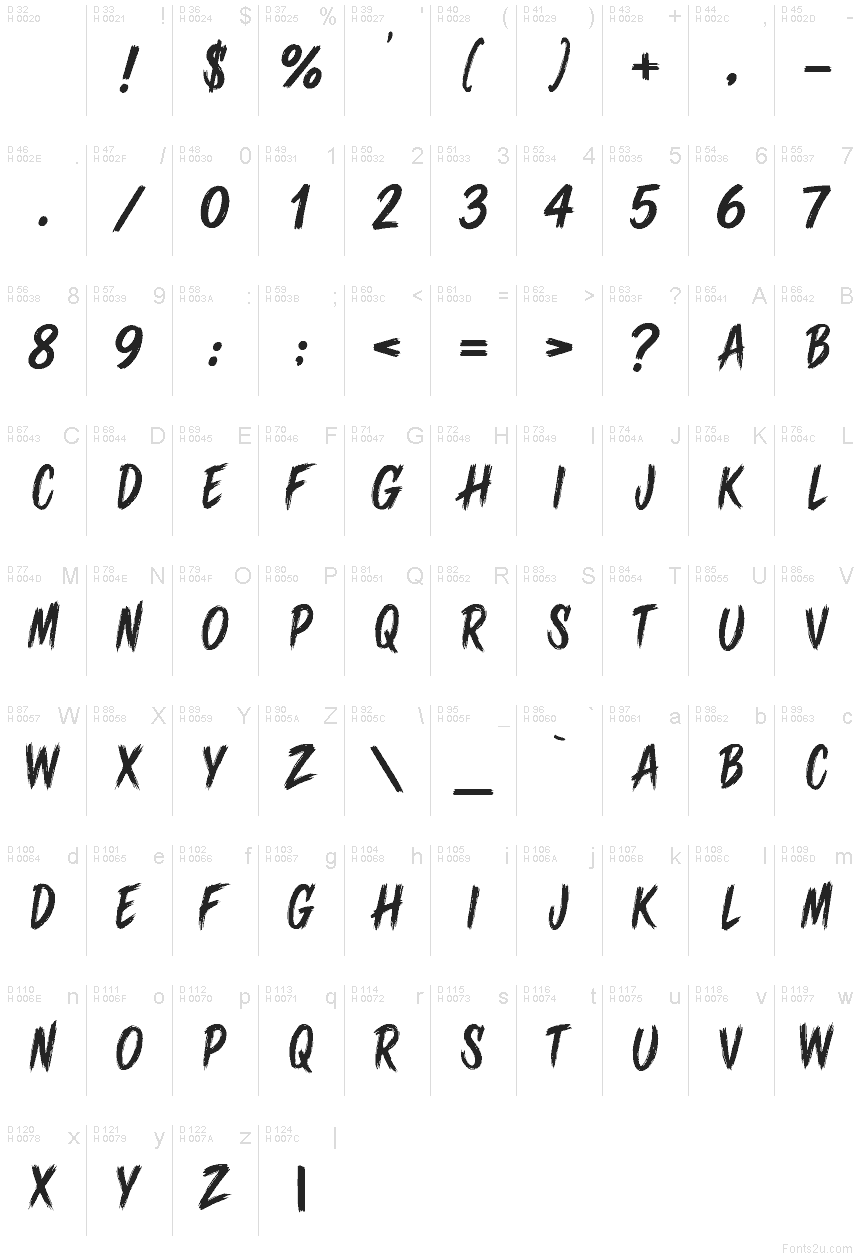
DarkSideoftheMoon
Dark Side of the Moon font by BlackFridayFont FMF is a free horror brush display font. Letters look slashed and wind-whipped, with inky spikes and ragged edges that feel freshly clawed. The rhythm is fast and slightly off-kilter, so headlines hit hard and leave a streak, like a scream across a dark sky.
Using Dark Side of the Moon, you can punch up horror posters, Halloween invites, haunted house signage, thriller book covers, metal album art, and game titles. This free font shines at big sizes where its gritty texture breathes; keep body copy in a neutral sans to steady the chaos. Quick tip: tighten tracking a touch and lean into all-caps for maximum menace.